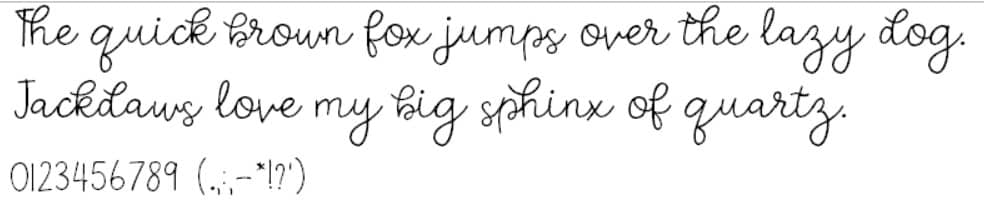
Andrea Script Font
We are featuring Andrea! It is a lovely handwritten typeface. This font was designed and published by pasha Larin on January 9, 2018.
Andrea is a beautiful handwritten monoline script font. This is a lovely hand-drawn font that’s been lovingly developed with care and competence. It is a premium font that is purchasable from Creative Fabrica. TrueType and OpenType versions of this font are commonly available. Multilingual support is available in the TrueType format. The lovely font comes in a variety of styles, including comedy, script, and handwritten. Few similar fonts of Andrea are Andrea Roft Script Font, Andrea Belarosa Handwritten Font, Hessley Andreas Handwritten Font etc.
Andrea Script Font is perfect for bringing a distinct decorative touch to your work while branding. It’s great for wedding invitations, blog headlines, and other personal designs, but it can also be utilized for business. With this font, you can easily create gorgeous fashion, clothes, stationery, publications, films, and a marketing portfolio.
| Style | Handwritten, script |
| Designer | Pasha Larin. |